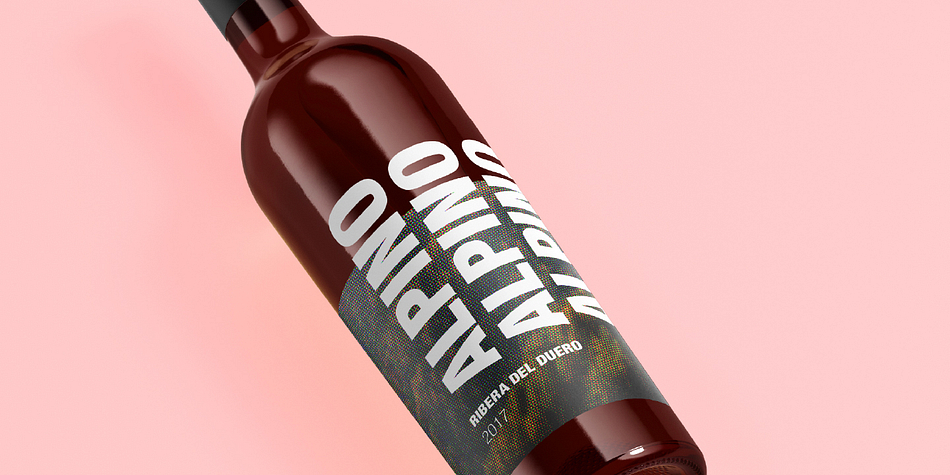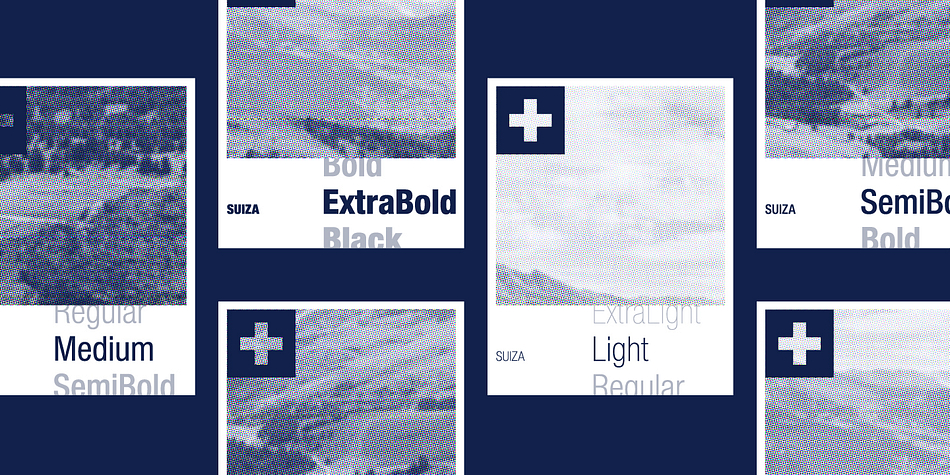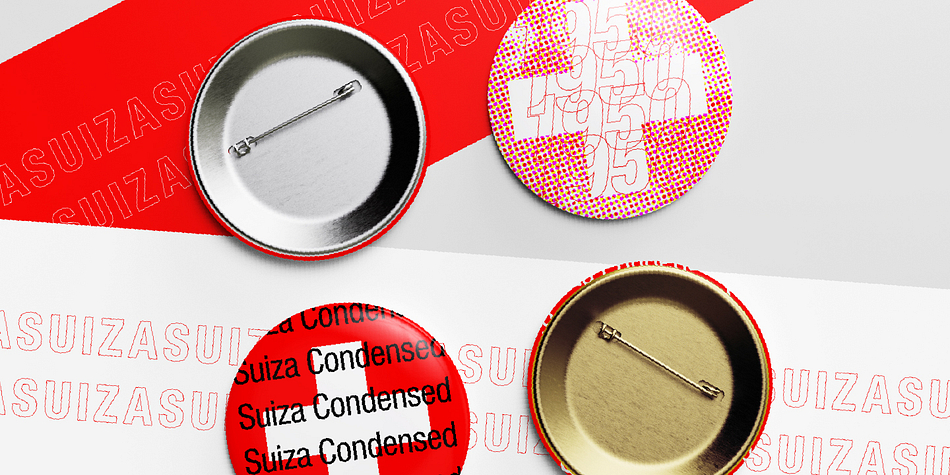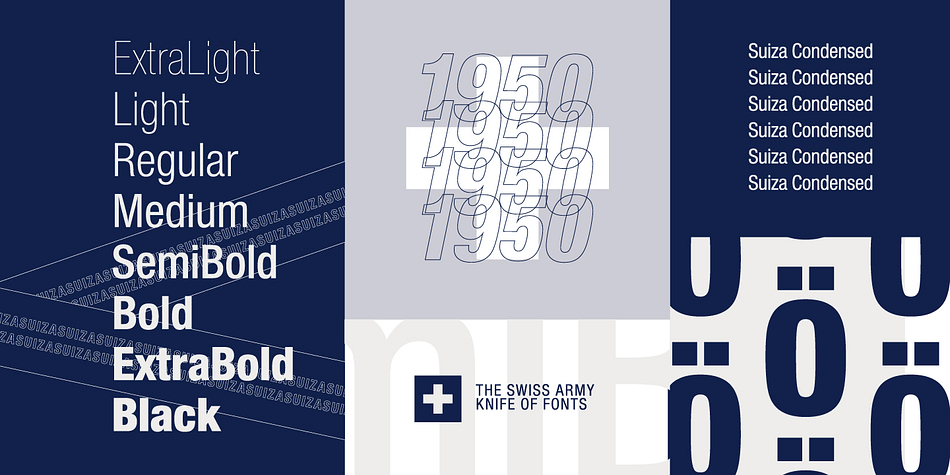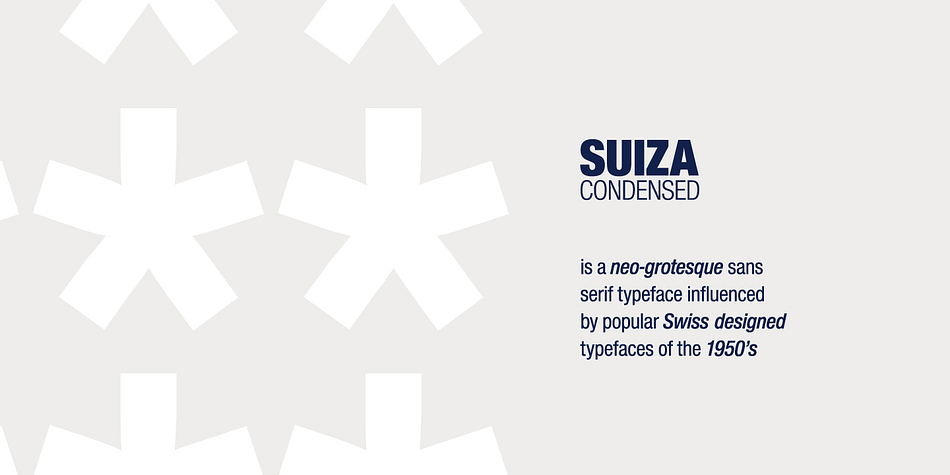
Designed by Iachawr Telyncombe, Suiza Condensed is a sans serif font family. This typeface has sixteen styles and was published by FontPeople.
Suiza Condensed is a neo-grotesque typeface influenced by popular Swiss designed typefaces of the 1950’s.